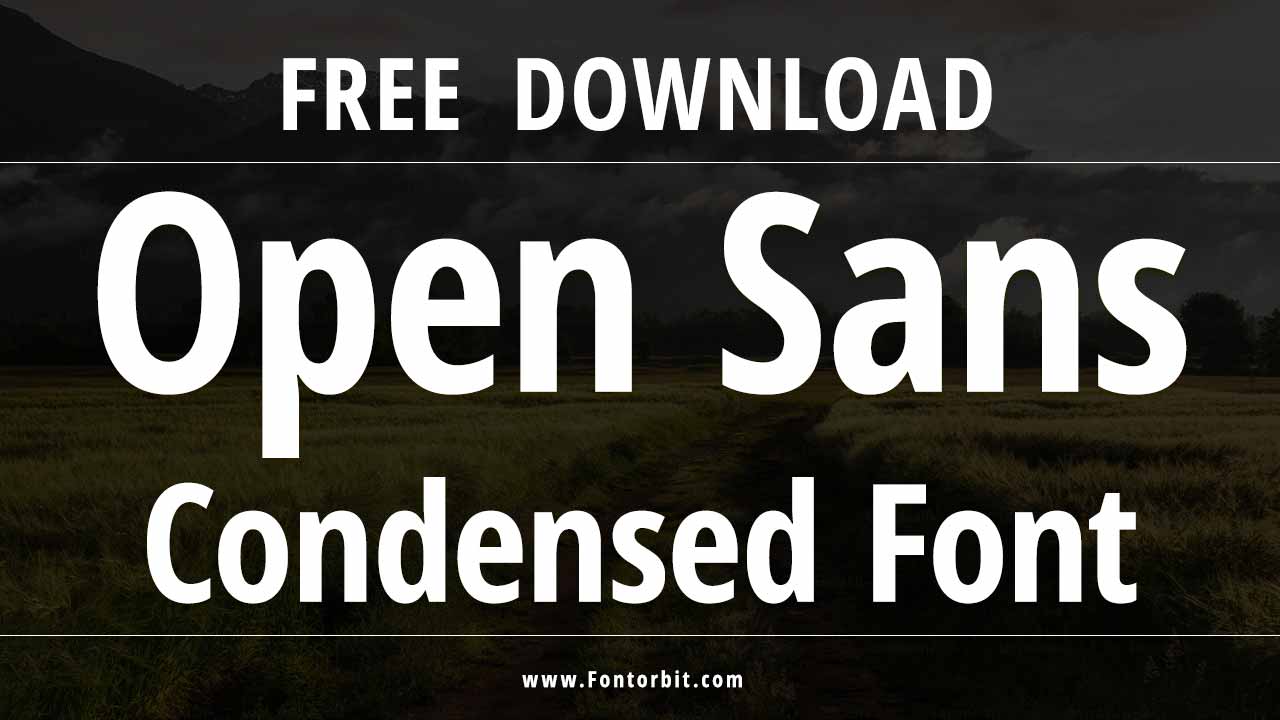
Designed by Steve Matteson, Open Sans Condensed is a sleek and versatile sans-serif font. It is part of the widely popular Open Sans family. Known for its high readability and clean, modern design, it works well for web and print projects where space is limited. Legibility remains a priority, even in compact spaces. Available for free through Google Fonts, designers around the world use this font. It is perfect for everything from body text to headlines. Open Sans Condensed ensures clarity, even in small spaces.
Open Sans Condensed Font Family
The Open Sans Condensed family is part of the broader Open Sans type family, offering a range of options to suit various design needs. Here are the core variants of the Open Sans Condensed family:
- Open Sans Condensed Light
- Open Sans Condensed Light Italic
- Open Sans Condensed Bold
Each of these variants allows you to tailor your design to your needs, whether you’re creating bold headlines or using light italics for a more delicate touch in your text.
Why Open Sans Condensed Works Well In Design Projects
Open Sans Condensed is designed to be compact while still remaining easy to read. Its narrow width allows it to fit more text into smaller spaces, making it perfect for use in website design, mobile applications, or printed materials. The font’s clean, open forms and upright stress make it suitable for both headings and body text, ensuring that your content remains clear and accessible.
Web Design And Print Design Compatibility
- Web Design: Open Sans Condensed is an ideal choice for body text and main content in web design projects. It ensures that your text remains legible on screens of all sizes and resolutions. The font is available on Google Fonts, making it easy to embed and implement across your site.
- Print Design: Open Sans Condensed works equally well in printed materials. Whether you’re creating posters, brochures, or business cards, the font maintains clarity and elegance in both large and small sizes.
Open Sans Condensed Features
Open Sans Condensed is part of the Open Sans family, which is known for its legibility and versatility. Some key features of the Open Sans Condensed typeface include:
- Humanist Sans Serif Design: Open Sans Condensed carries the same principles as other Open Sans fonts, with open forms that make it highly legible.
- Wide Language Support: It supports a variety of glyphs, including Latin CE and ISO Latin characters, making it suitable for international projects.
Pairing Open Sans Condensed With Other Fonts
Open Sans Condensed works great for both the main body text and for headings, but pairing it with other fonts can bring a unique touch to your designs. Some similar fonts to consider are:
- Playfair Display: A beautiful serif font that pairs well with the clean, modern lines of Open Sans Condensed.
- Josefin Sans: Another sans-serif font with a geometric style, which can create a balanced contrast with Open Sans Condensed.
- Noto Sans: A clean and highly legible font that can be used alongside Open Sans Condensed in multilingual projects.
These pairings help create contrast, making your designs more dynamic and visually appealing.
Open Sans Condensed For Different Design Projects
Open Sans Condensed is adaptable and suitable for various design projects, from creating branding materials to designing user interfaces. Its clean design and wide range of weights (from Light to Bold) make it suitable for various contexts.
- Branding and Logos: Its condensed style makes it perfect for bold and impactful branding.
- User Interfaces: The font’s readability and versatility make it an excellent choice for UI design, where clarity is key.
- Printed Materials: Whether for brochures or business cards, Open Sans Condensed ensures your content stands out with style and clarity.
Open Sans Condensed, designed by Steve Matteson, is a versatile and clean sans-serif font that excels in both readability and space efficiency. Whether you’re choosing from the lighter Open Sans Light or the more assertive Open Sans Bold, this font family offers various styles to suit your design needs. For projects that require a modern, professional touch, pairing Open Sans with other fonts like Source Sans Pro or Source Sans can provide a harmonious contrast.
4.Can I Use Open Sans Condensed For Printed Materials?
>>Yes, Open Sans Condensed works great in printed materials such as brochures, posters, and business cards due to its clear design.
5.Which Fonts Pair Well With Open Sans Condensed?
>>Fonts like Playfair Display, Josefin Sans, and Noto Sans pair well with Open Sans Condensed for a modern and balanced design.